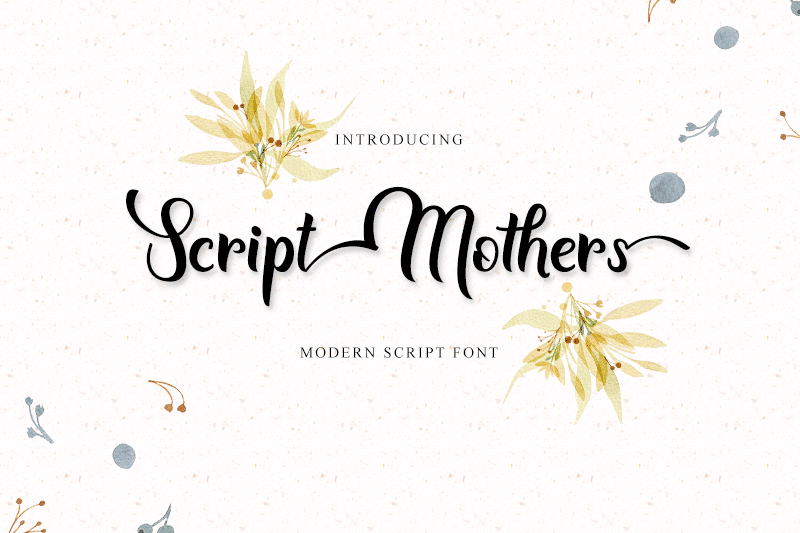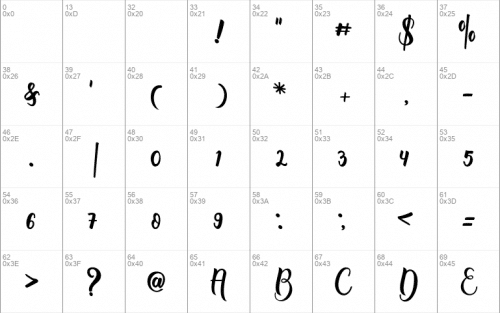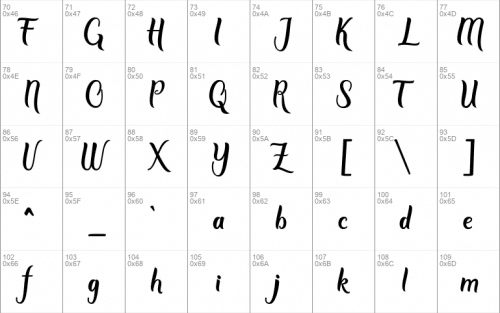
Script Mother Font is another lovely modern calligraphy typefaces, which is combining the style of classic calligraphy with an modern style. combines from copperplate to contemporary typeface with a dancing baseline, modern and elegant touch.
Script Mother Font features 345 glyphs and alternate characters Include . including initial and terminal letters, alternates, ligatures and multiple language support..The Features of this fonts is ;